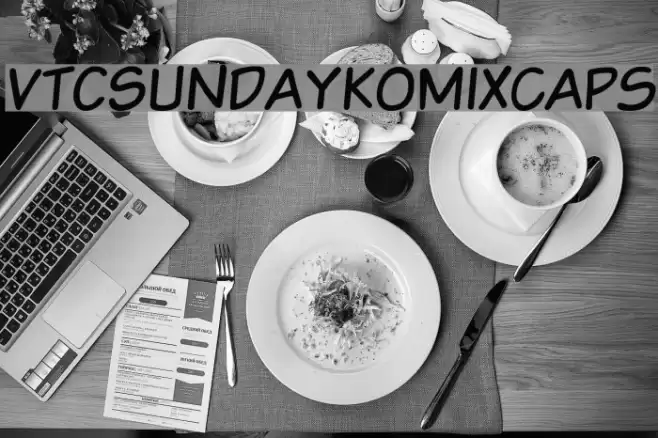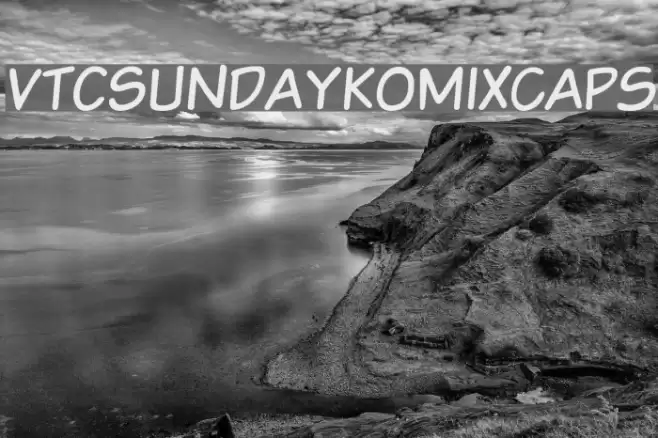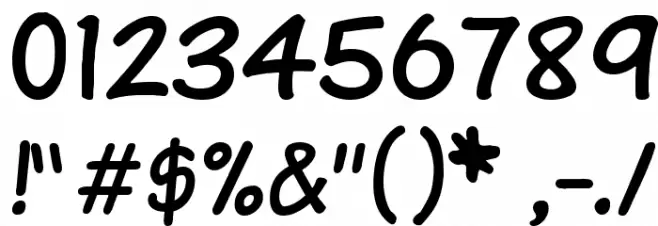
VTCSundaykomixcaps Font
VTCSundaykomixcaps Description
This playful and bold font features a handwritten style with a casual, comic-like appearance. The letters are slightly slanted, giving them a dynamic and energetic feel. Each character is crafted with smooth curves and rounded edges, creating a friendly and approachable look. The font maintains consistent stroke thickness throughout, offering a uniform and cohesive appearance. Its informal style makes it ideal for projects that require a touch of whimsy and creativity. The numbers and special characters are designed to match the playful nature of the letters, ensuring a harmonious overall design.
A playful, comic-style handwritten font with smooth curves and a dynamic feel from Uncategorized fonts.
- Proposed Projects: Ideal for comic books, children's books, playful branding, and casual invitations.
- Overall Style: Playful
- Use Case: Headlines, Logos, Informal Text